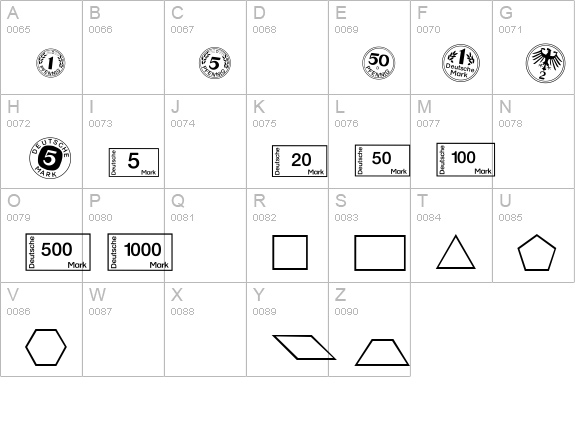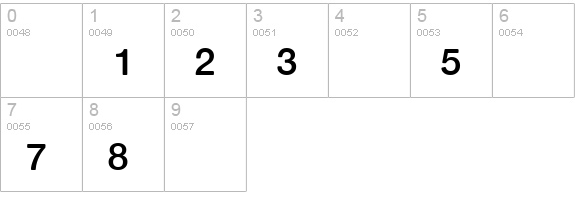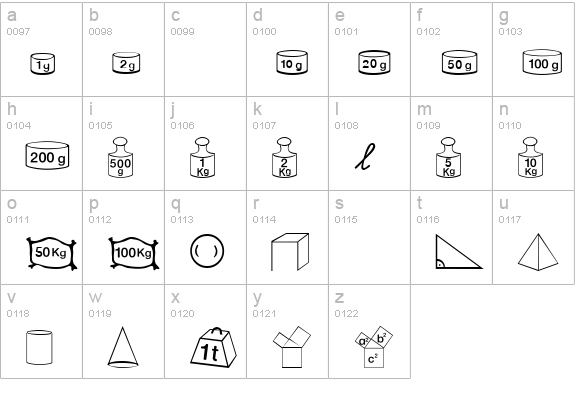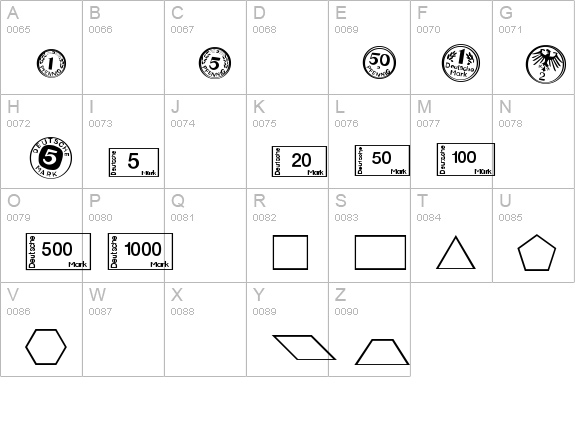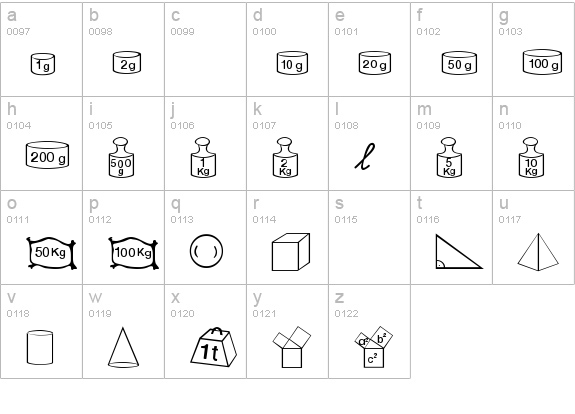
Adam font is a beautifully crafted typeface that exudes elegance and sophistication. With its sleek lines and modern design, Adam font is perfect for adding a touch of class to any project. This versatile font is free to download at FontsMarket.com, making it easily accessible for all designers and creatives looking to enhance their work with a touch of style. Whether you're creating a logo, designing a website, or working on a branding project, Adam font is sure to make a lasting impression. Don't miss out on this stunning font that combines modernity with timeless appeal – download it for free today!